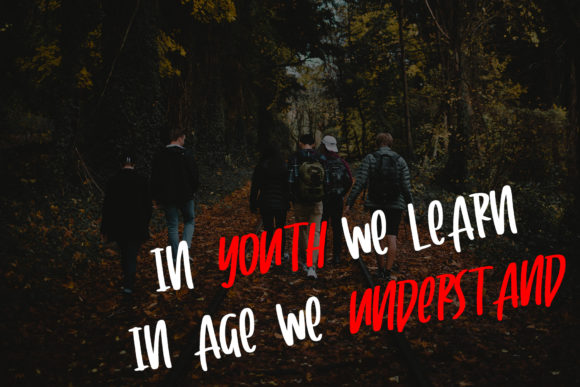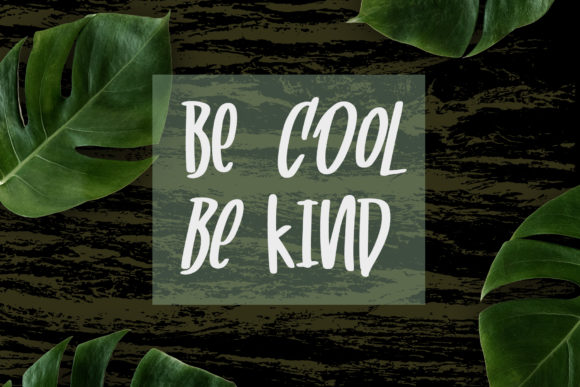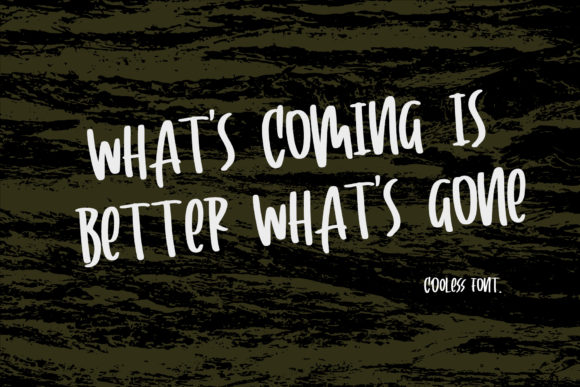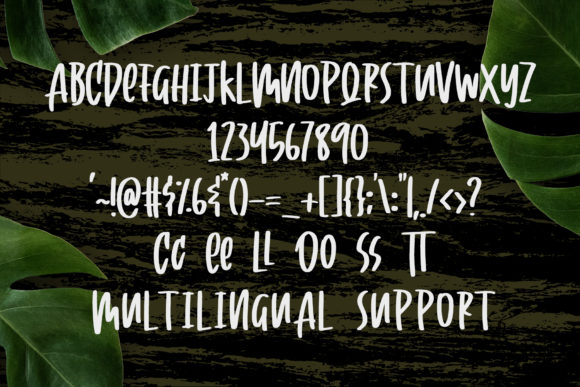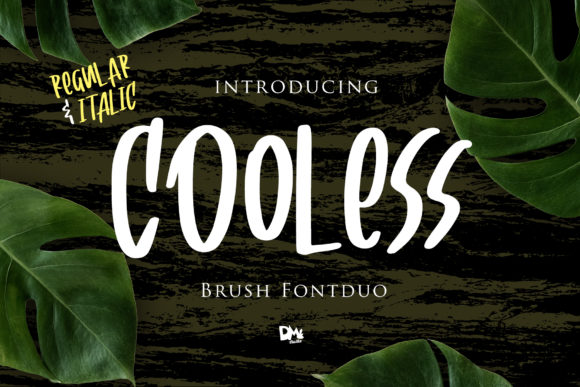
Introducing Cooless Font: The Funky, Fresh, and Weird Script to Elevate Your Design Projects
In the world of typography, fonts play a crucial role in conveying the tone and personality of a design project. With thousands of fonts available, it can be challenging to find the perfect one that adds a unique touch to your work. However, if you’re looking for a script that feels funky, fresh, and weird, look no further than Cooless Font. This distinctive script is designed to add an authentic layer to any design project, making it a must-have for designers and crafters.
What Makes Cooless Font Stand Out?
Cooless Font is not your average script. Its unique blend of funky, fresh, and weird elements makes it a standout in the world of typography. Here are some features that make Cooless Font a game-changer:
• Unique Letterforms: Cooless Font boasts distinctive letterforms that are both quirky and charming. Each letter is carefully crafted to add a touch of personality to your design projects.
• Hand-Drawn Style: The font’s hand-drawn style gives it a human touch, making it perfect for designs that require a personal and approachable feel.
• Versatile: Cooless Font is versatile and can be used for a wide range of design projects, from branding and advertising to packaging and digital media.
Why Designers and Crafters Love Cooless Font
Designers and crafters are always on the lookout for fonts that can help them create unique and eye-catching designs. Here are some reasons why Cooless Font has become a favorite among designers and crafters:
• Adds Personality: Cooless Font adds a touch of personality to any design project, making it perfect for brands that want to stand out from the crowd.
• Easy to Read: Despite its quirky style, Cooless Font is easy to read, making it perfect for designs that require a clear and concise message.
• Customizable: Cooless Font can be customized to fit your design needs, allowing you to experiment with different styles and variations.
How to Use Cooless Font in Your Design Projects
Using Cooless Font in your design projects is easy. Here are some tips to get you started:
• Pair it with Other Fonts: Cooless Font can be paired with other fonts to create a unique and visually appealing design.
• Experiment with Colors: Cooless Font looks great in a variety of colors, so don’t be afraid to experiment and find the perfect hue for your design.
• Use it for Headings and Titles: Cooless Font is perfect for headings and titles, adding a touch of personality and whimsy to your design.
Cooless Font is a game-changing script that can add a unique touch to any design project. Its funky, fresh, and weird style makes it perfect for designers and crafters who want to create eye-catching and memorable designs. With its versatility, customizability, and ease of use, Cooless Font is a must-have for anyone looking to elevate their design projects.